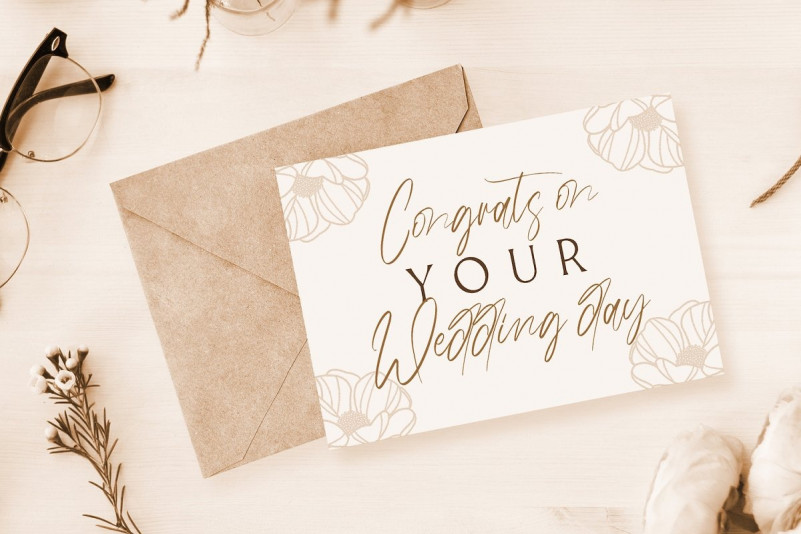
Margareth Rosinante Font Duo
“Margareth Rosinante” is a modern serif font family. With luxury and sophistication that are consistent with one another. Margareth Rosinante is designed for an epic comparison between serif and script styles. The stark contrast between the Margaret Rosinante serif and the script makes this font family always suitable to be paired with in any design.